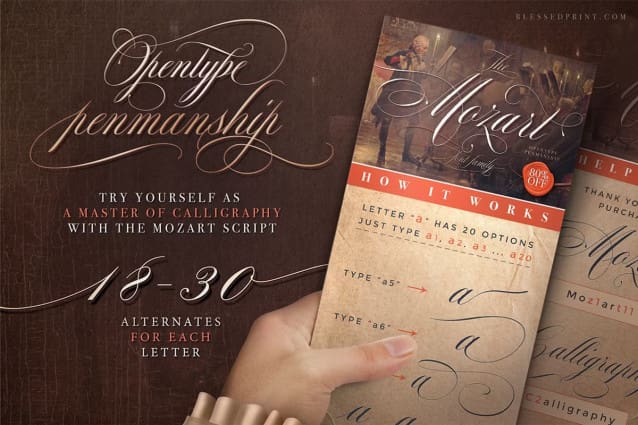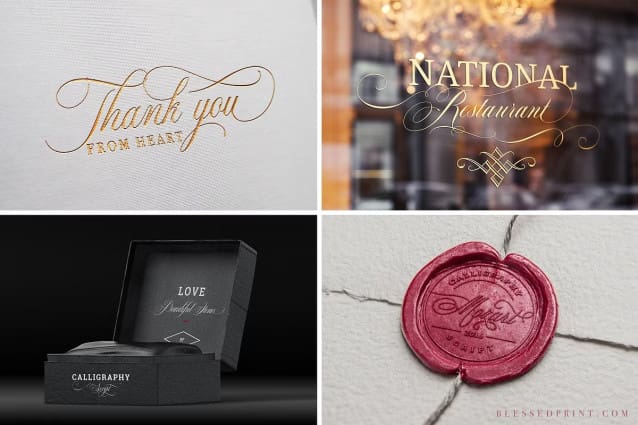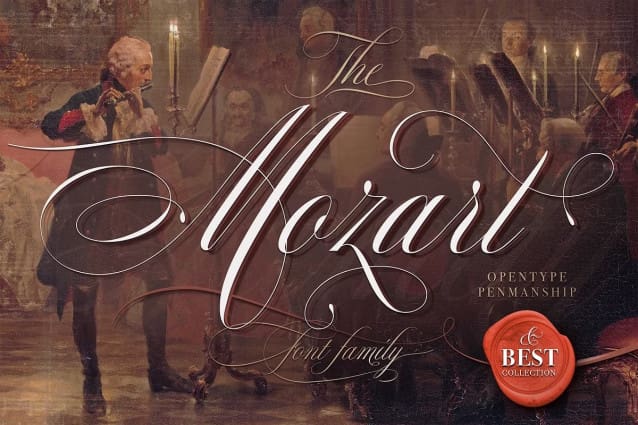
The Mozart Font Family
The Mozart Font Family, is a calligraphy font that comes with exquisite changing characters, a kind of classic decorative copper script with a modern touch, designed with high details to bring out the elegance of the style.